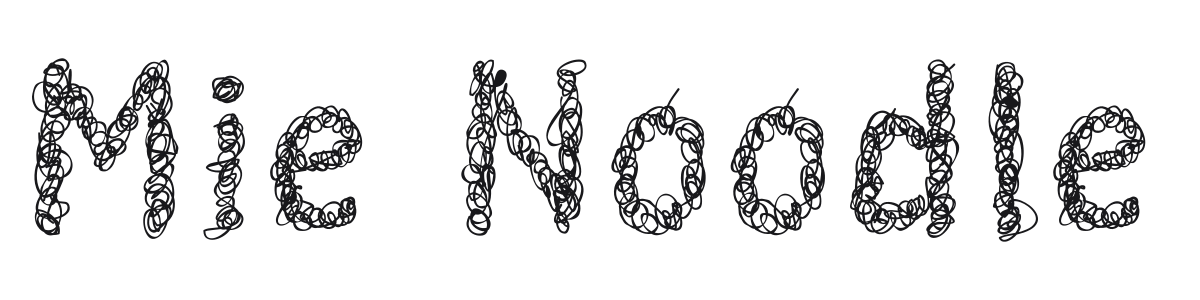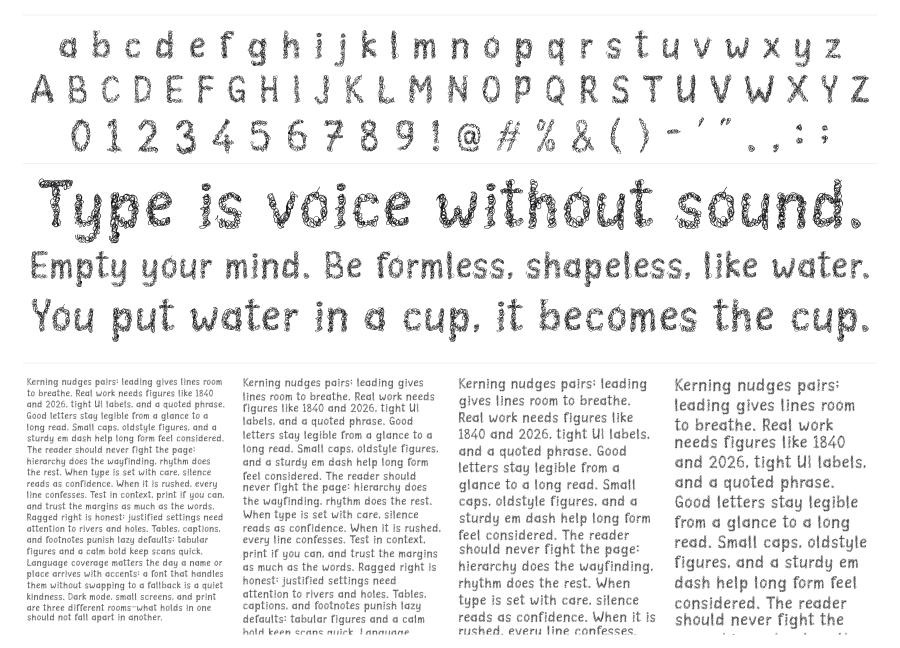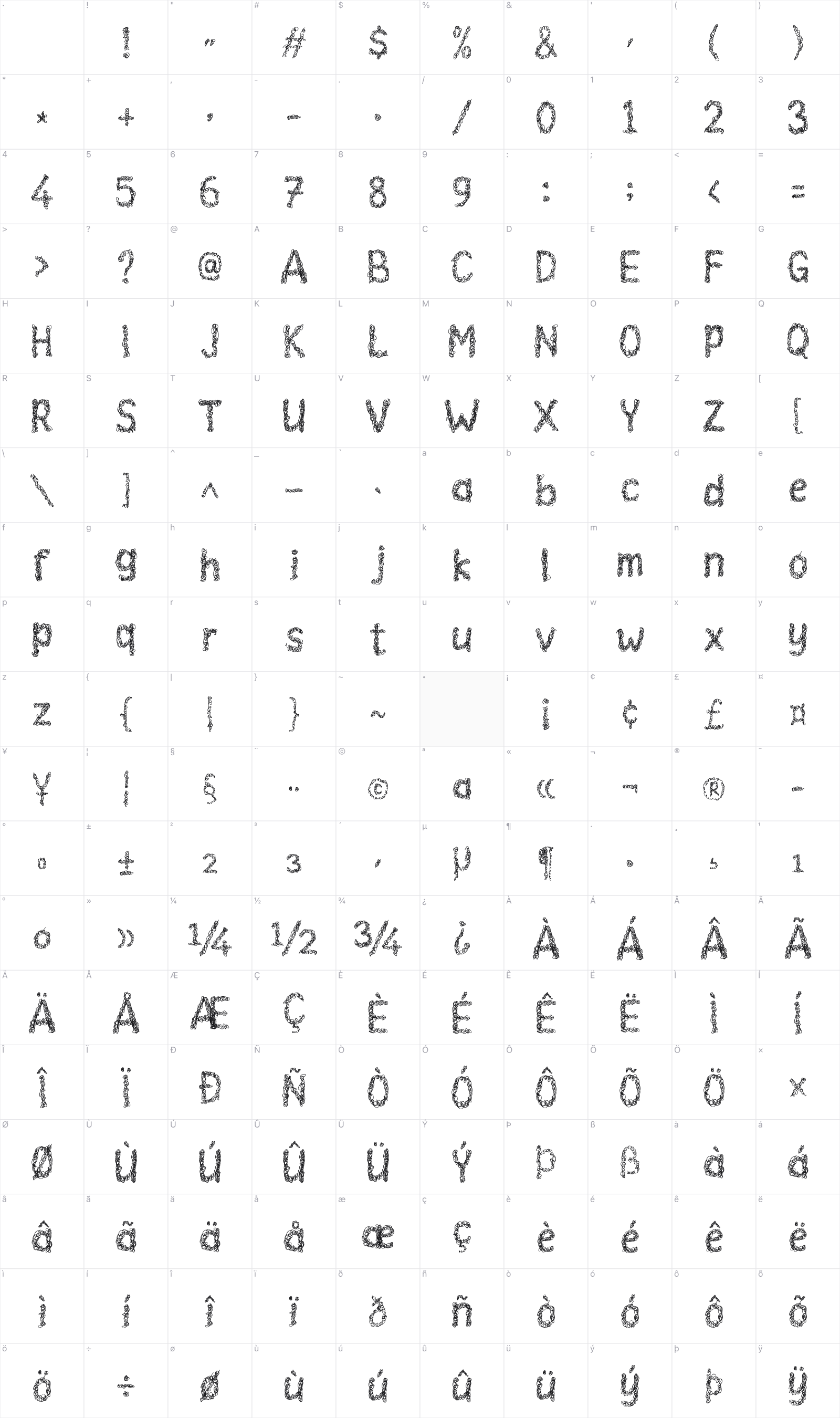
Mie Noodle
Mie Noodle is a novelty display font where every character is literally drawn from tangled, looping noodle strands. The result is recognizable enough to read quickly but strange enough to stop you mid-scroll. It works best for food branding, YouTube thumbnails, or any headline that needs a strong visual concept baked into the type itself.